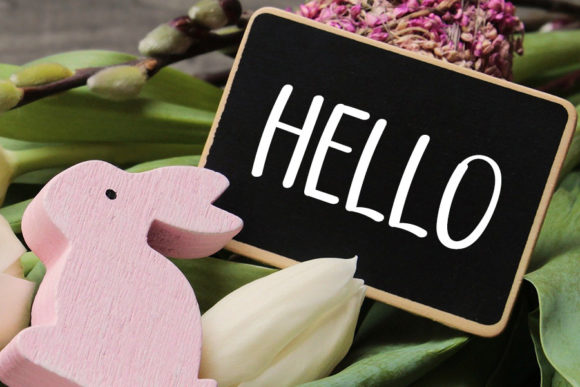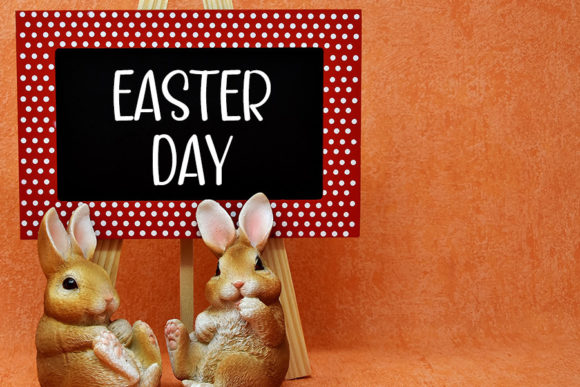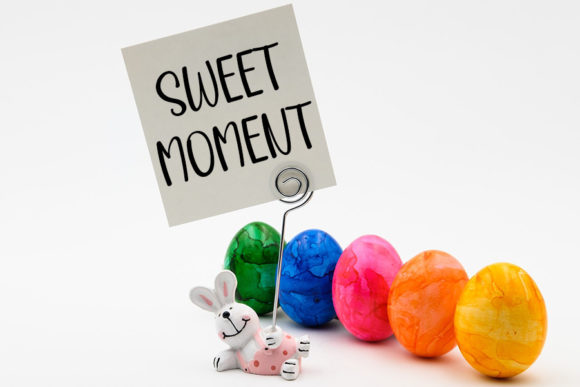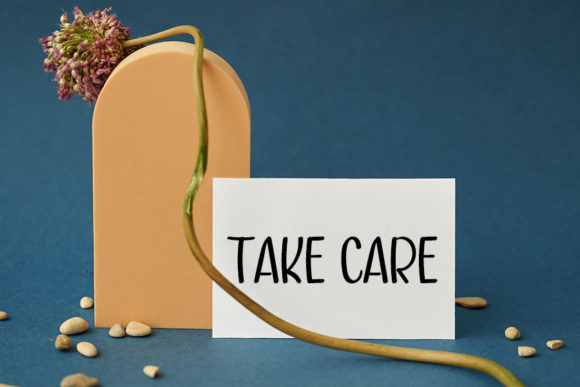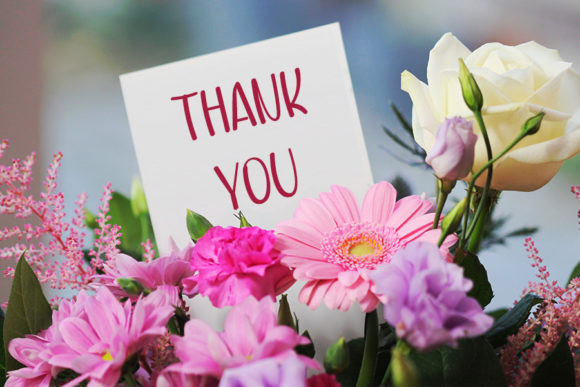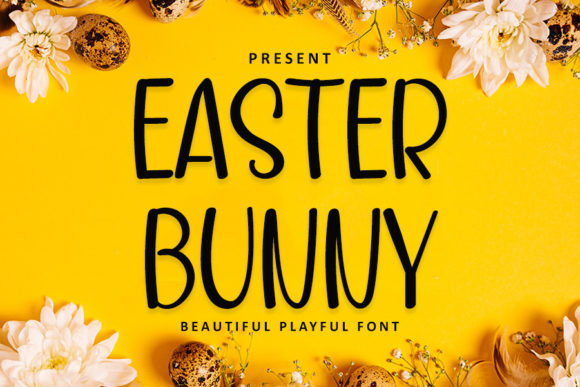
Easter Bunny Font: Elevate Your Designs with a Timeless Classic
Are you looking for a font that exudes elegance, sophistication, and a touch of playfulness? Look no further than the Easter Bunny Font, a stylish and bold handwritten font that is sure to elevate your designs to the next level. Inspired by timeless classic calligraphy, this font boasts a contemporary atmosphere and impeccable form, making it perfect for a wide range of creative projects.
What is Easter Bunny Font?
Easter Bunny Font is a beautifully crafted handwritten font that is characterized by its bold and stylish lettering. With its roots in classic calligraphy, this font has been carefully designed to bring a touch of sophistication and elegance to your designs. Whether you’re working on a branding project, creating greeting cards, or designing social media graphics, Easter Bunny Font is the perfect choice.
Key Features of Easter Bunny Font
- Stylish and Bold Lettering: Easter Bunny Font features bold and stylish lettering that is sure to make your designs stand out.
- Contemporary Atmosphere: With its modern take on classic calligraphy, this font boasts a contemporary atmosphere that is perfect for designers and crafters who want to create fresh and modern designs.
- Impeccable Form: Each letter has been carefully crafted to ensure impeccable form, making this font perfect for use in a wide range of creative projects.
- Multilingual Support: Easter Bunny Font supports multiple languages, making it a versatile choice for designers and crafters who work with international clients or want to create designs for a global audience.
Perfect for a Wide Range of Contexts
Easter Bunny Font is a versatile font that can be used in a wide range of contexts, including:
- Branding and Logo Design: Create a lasting impression with a bold and stylish logo that showcases your brand’s personality.
- Greeting Cards and Stationery: Add a touch of elegance and sophistication to your greeting cards and stationery with Easter Bunny Font.
- Social Media Graphics: Create eye-catching social media graphics that showcase your brand’s personality and style.
- Packaging Design: Elevate your packaging design with a font that exudes elegance and sophistication.
Why Choose Easter Bunny Font?
With so many fonts to choose from, why should you choose Easter Bunny Font? Here are just a few reasons:
- Unique and Eye-Catching: Easter Bunny Font is a unique and eye-catching font that is sure to make your designs stand out.
- High-Quality Design: Each letter has been carefully crafted to ensure high-quality design, making this font perfect for use in professional designs.
- Easy to Read: Despite its bold and stylish lettering, Easter Bunny Font is easy to read, making it perfect for use in a wide range of creative projects.
Tips for Using Easter Bunny Font
Here are a few tips for using Easter Bunny Font in your designs:
- Use it as a Title Font: Easter Bunny Font is perfect for use as a title font, adding a touch of elegance and sophistication to your designs.
- Pair it with a Sans-Serif Font: Pair Easter Bunny Font with a sans-serif font to create a beautiful contrast that adds visual interest to your designs.
- Experiment with Colors: Don’t be afraid to experiment with different colors to find the perfect combination that showcases your brand’s personality and style.
Easter Bunny Font is a stylish and bold handwritten font that is sure to elevate your designs to the next level. With its timeless classic calligraphy, contemporary atmosphere, and impeccable form, this font is perfect for designers and crafters who want to create fresh and modern designs. Whether you’re working on a branding project, creating greeting cards, or designing social media graphics, Easter Bunny Font is the perfect choice.